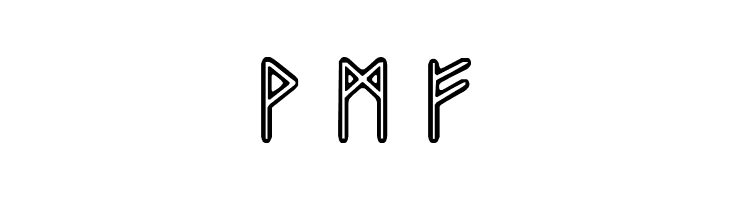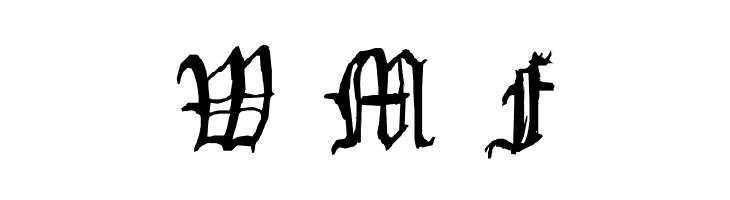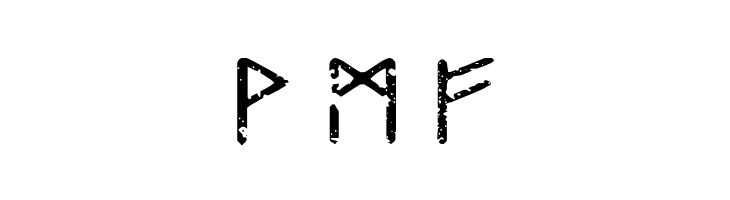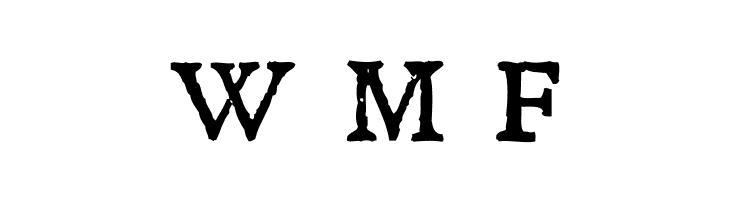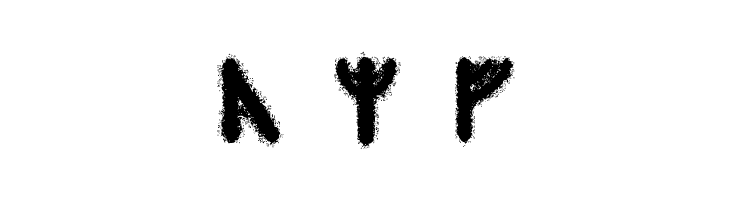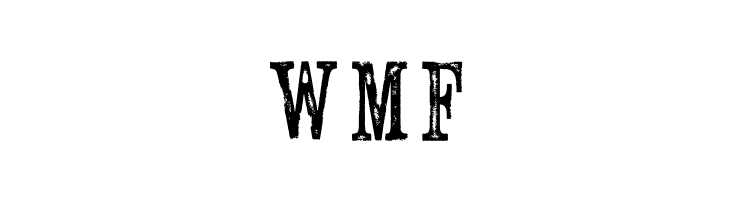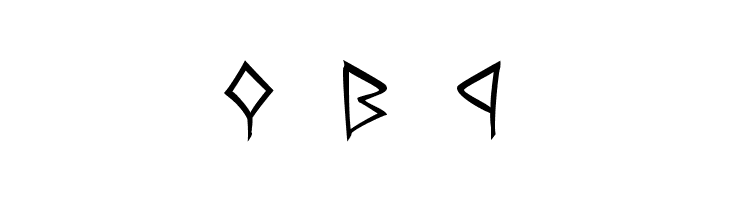
A runic-inspired font with bold, angular, and geometric shapes.
A bold, textured runic font with a rugged, ancient appearance.
A distressed, runic-inspired font with angular, geometric shapes.
A vintage, hand-drawn font with a rustic and distressed appearance.
A bold, runic-style font with a rugged, ancient appearance.
A bold, distressed font with a vintage, textured style.
A decorative, runic-inspired font with sharp, angular lines and a mysterious, ancient feel.